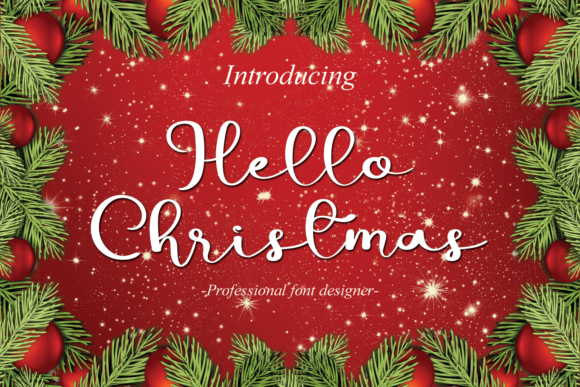
Deck the Halls with Style: Introducing Hello Christmas Font
As you sit down to create a festive holiday card, a birthday invitation, or a seasonal blog post, you’re faced with the daunting task of choosing the perfect font. The right typeface can make all the difference in conveying your message and setting the tone for your design. And that’s where the Hello Christmas Font comes in – a stylish script font designed to add a touch of elegance and whimsy to any project.
This beautifully crafted font is more than just a pretty face; it’s a valuable asset for any designer looking to elevate their creations. With its intricate details and charming flair, the Hello Christmas Font is sure to make your designs stand out from the crowd. Whether you’re a seasoned pro or just starting out, this font is a must-have addition to your font library.
Hello Christmas Font Key Features
- Unique Characteristics: Hello Christmas Font features a unique, hand-drawn design with intricate details and ornaments, perfect for adding a touch of festive charm to holiday-themed projects.
- Style Options: The font includes various style options, including bold, italic, and regular, allowing users to customize their designs to suit their needs.
Hello Christmas Font Review
Hello Christmas Font is a festive and cheerful font that embodies the spirit of the holiday season. It’s perfect for creating eye-catching graphics, social media posts, and even gift tags ✨.
Here are some of the things that work well with this font:
- Unique and playful letterforms that add a touch of whimsy to designs
- Excellent for creating bold, attention-grabbing headlines and titles
- Works well in digital and print formats, making it a versatile choice
- Not ideal for body text, as it can be difficult to read in smaller sizes ⚠️
- Limited character set, which may not be suitable for longer text-based projects
- May not be suitable for corporate or formal designs, as it’s quite playful and festive
Overall, Hello Christmas Font is a great choice for designers looking to add some holiday cheer to their projects. While it may not be the most versatile font, it’s perfect for creating festive and fun designs ✨. Just be mindful of its limitations and use it in the right context.
Tips for Getting the Most Out of “Hello Christmas Font”
Here are a few tips to help you get the most out of “Hello Christmas Font”:
- Use it in conjunction with festive graphics and colors to create a cohesive holiday look.
- Use it to create a sense of whimsy and playfulness in your designs.
“Hello Christmas Font” is perfect for:
- Holiday greeting cards and invitations.
- Christmas party decorations and signage.
- Winter-themed social media graphics
Alternatives to Hello Christmas Font for Designers
Great Vibes is a beautiful, elegant script font perfect for creating festive and luxurious designs. It’s ideal for use in Christmas card invitations, gift tags, and holiday-themed packaging. Great Vibes offers a more sophisticated look compared to Hello Christmas Font, making it suitable for high-end designs.
Alex Brush is a calligraphic script font that exudes a sense of elegance and sophistication. It’s suitable for use in Christmas designs that require a touch of luxury and refinement. Compared to Hello Christmas Font, Alex Brush has a more refined and polished look, making it ideal for premium designs.
Carolyna Pro is a modern script font with a touch of elegance and sophistication. It’s perfect for creating Christmas designs that require a unique and stylish look. Compared to Hello Christmas Font, Carolyna Pro has a more contemporary feel, making it suitable for modern and trendy designs.